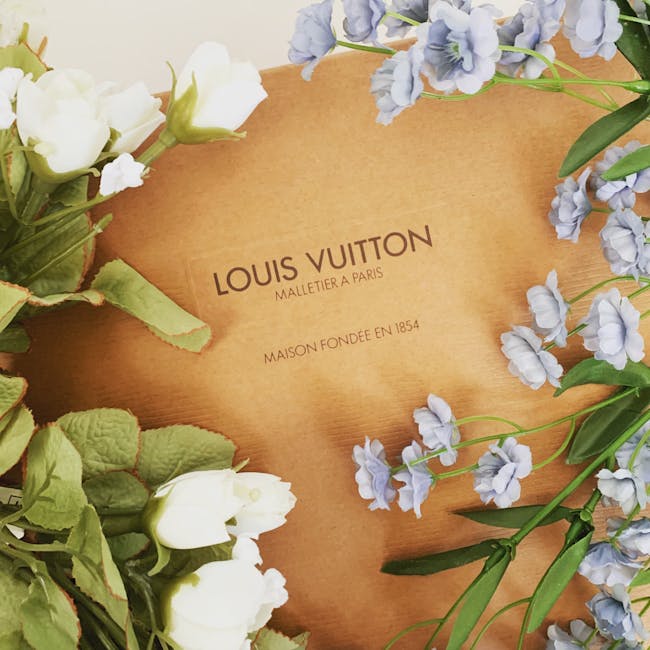
What is Classy Logo Font
What is Classy Logo Font?
Creating a distinctive brand identity is crucial, and one of the most powerful tools at your disposal is typography. Specifically, classy logo fonts can transform an ordinary logo into a memorable brand mark. But what makes a font ‘classy’, and why does it matter so much in branding? Let’s explore this fascinating subject.
Introduction to Classy Logo Fonts
Classy logo fonts are more than just letters; they are the embodiment of sophistication and elegance in design. A well-chosen font can speak volumes about a brand’s values and aesthetic, setting the tone for how it is perceived by the audience. Whether you’re developing a new brand or refreshing an existing one, the choice of font can play a pivotal role in your branding strategy.
Understanding Classy Logo Fonts
A classy logo font exudes elegance and timelessness. Unlike trendy fonts that might quickly go out of style, these fonts maintain their appeal over time. They are meticulously designed to provide a balance between aesthetic beauty and readability, making them ideal for high-end brands.
Characteristics of Classy Fonts
The characteristics that define classy fonts often include elegance, readability, and a touch of sophistication. Fonts such as Gotham, Futura, and Helvetica are renowned for their versatility. Elegance in a font means smooth lines and harmonious proportions, while readability ensures that the text is easy to comprehend at a glance.
Examples of Classy Logo Fonts
Some popular classy logo fonts include Avenir, Gilroy, and Times New Roman. These fonts are frequently used in luxury branding due to their classic appeal and ability to convey a sense of prestige and reliability.
The Importance of Typography in Branding
Typography is not just about choosing fonts; it’s about creating a visual language that communicates your brand’s essence. It plays a critical role in how your brand is perceived and can significantly influence consumer behavior.
Creating a Strong Brand Identity
A cohesive and strong brand identity relies heavily on typography. Using classy logo fonts helps to establish this identity by offering consistency across all platforms—from business cards to digital ads. This consistency is crucial for brand recognition and loyalty. For more on typography’s role in branding, check out this insightful article.
The Emotional Impact of Font Choices
Different fonts evoke different emotions. A serif font might convey tradition and trust, while a sans-serif font can feel modern and clean. Understanding the emotional impact of your font choice can help you connect with your audience on a deeper level. Learn more about how typography affects consumer perception at Litmus Branding.
Choosing the Right Classy Logo Font
Selecting the perfect font for your brand involves understanding both your brand’s message and your audience’s expectations. Consider these aspects to make an informed decision.
Considering Target Audience
Your font choice should resonate with your target audience. If your demographic values tradition and heritage, a more classic font might be appropriate. Conversely, a modern tech company might opt for a sleek, minimalist typeface. Understanding your audience’s preferences is crucial in making the right choice.
Balancing Style and Functionality
While it’s important for a font to be stylish, it’s equally important that it serves its primary function: communication. A font that’s too complex may lose readability, while a font that’s too simple may not make the desired impact. Striking a balance is key.
Trends in Classy Logo Fonts
Typography trends evolve, yet the classic appeal of certain fonts persists. Here’s a look at some current trends in classy logo typography.
Vintage vs. Modern Styles
Vintage fonts are making a comeback, appealing to brands that want to evoke nostalgia and authenticity. Meanwhile, modern fonts are favored for their clean lines and simplicity. Explore more about these trends at The Designest.
Minimalism in Logo Design
Minimalism is gaining traction, with many brands opting for simplistic yet effective designs. Minimalistic fonts, often sans-serif, are popular for their versatility and clarity. This trend is discussed in Creative Bloq.
Classy logo fonts are a cornerstone of effective branding, providing both aesthetic value and conveying brand identity. By carefully selecting fonts that align with your brand values and resonate with your audience, you can create a powerful, lasting impression. Remember, your logo is often the first interaction a consumer has with your brand—make it count with the perfect font.